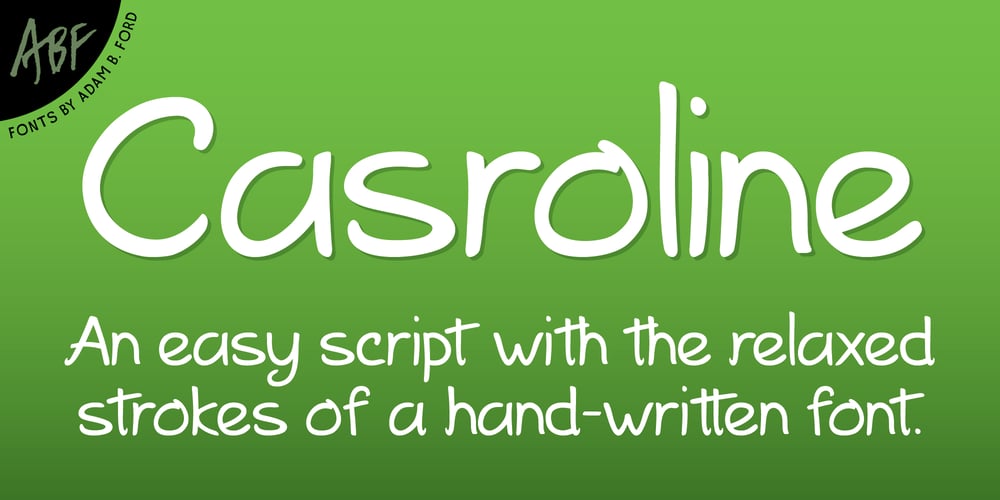
Casroline Font Family was designed by Adam B. Ford and published by Adam B. Ford. Casroline contains 1 styles and family package options. Casroline (pronounced CAZ-ROW-LEEN) is a relaxed script with a hand-written feel. It is based off of the capital letter S as written by my sister Caroline with a felt-tipped pen when she was twelve. The sway of it was very pleasing and i tried to give the rest of the font the same feel, basing other letters off of her script.